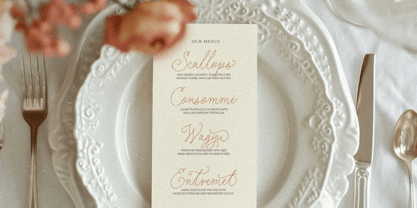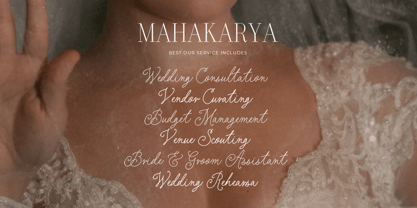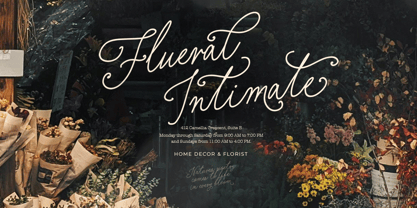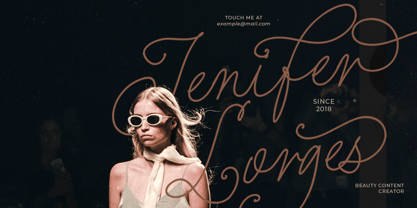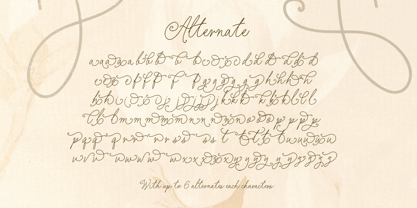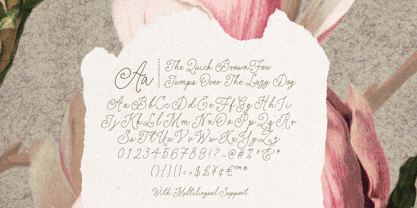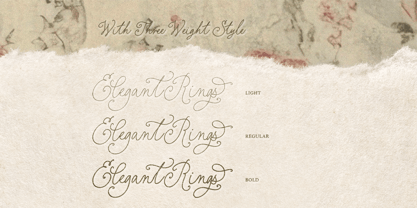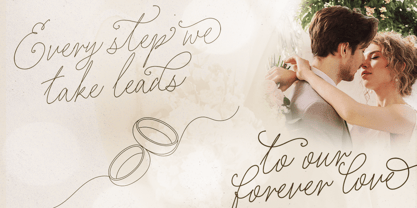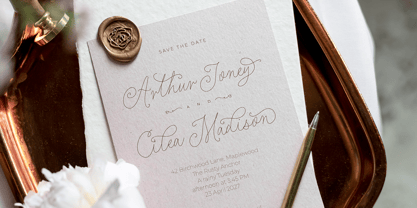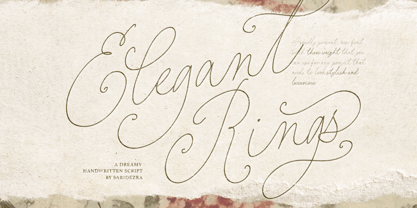
Elegant Rings
von Sarid Ezra
Die Schriftfamilie Elegant Rings wurde von Sarid Ezra entworfen und von Sarid Ezra veröffentlicht. Elegant Rings enthält 3 Stile und Familienpaketoptionen. Mehr über diese Familie
Proudly present, new handwritten script called Elegant Rings. This fonts comes with three weight, Light, Regular, and Bold that you can use for any purposes, such as elegant branding, logotype, wedding invitation, or any project that needs to look stylish and luxurious. With up to 6 stylish alternates that you can choose to make your designs even more stunning. This Font also support multi language.